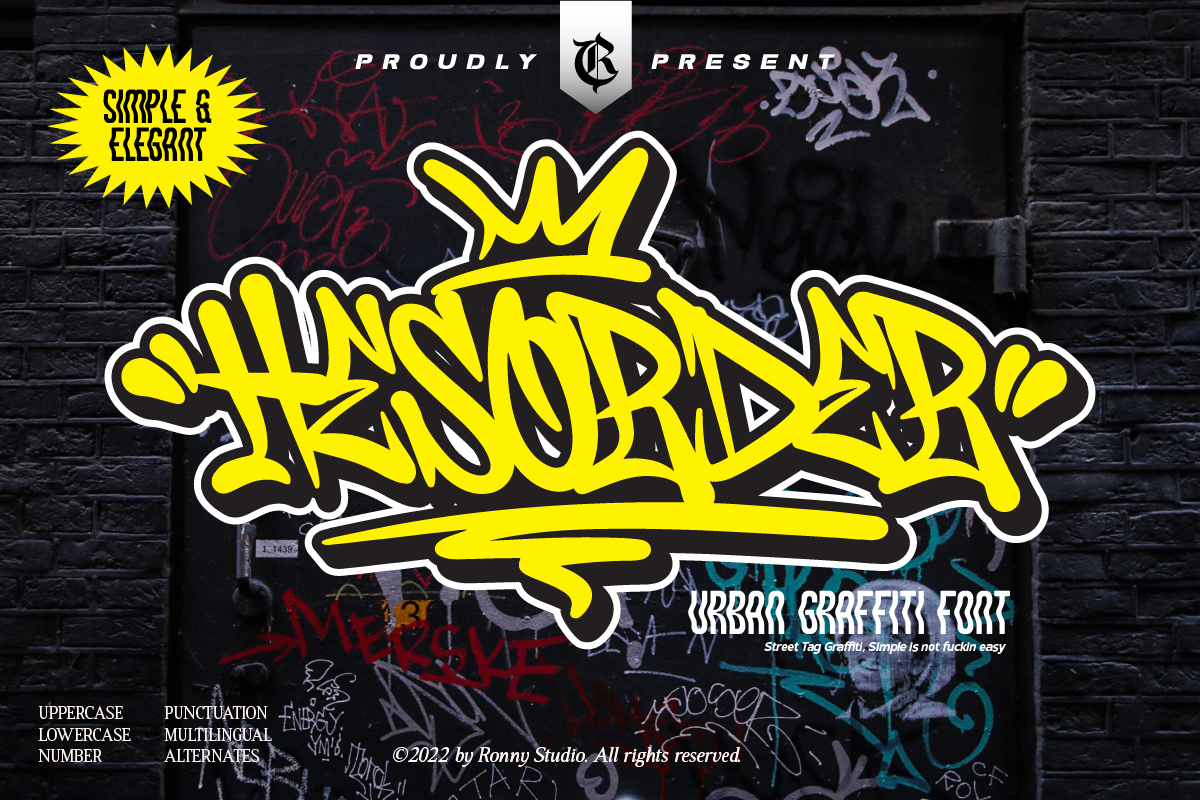
Turn up the volume on your visuals with Hesorder Urban Graffiti Font Free Download — a bold, rebellious typeface inspired by street art and underground culture. With its raw strokes and spray-paint vibes, this graffiti-style font is perfect for urban branding, hip-hop album covers, streetwear logos, event flyers, and anything that needs an edge.
Hesorder brings attitude and authenticity to your designs, channeling the expressive power of graffiti into a digital form. It features a full character set including uppercase and lowercase letters, numbers, punctuation, and multilingual support — everything you need to create loud, energetic compositions.